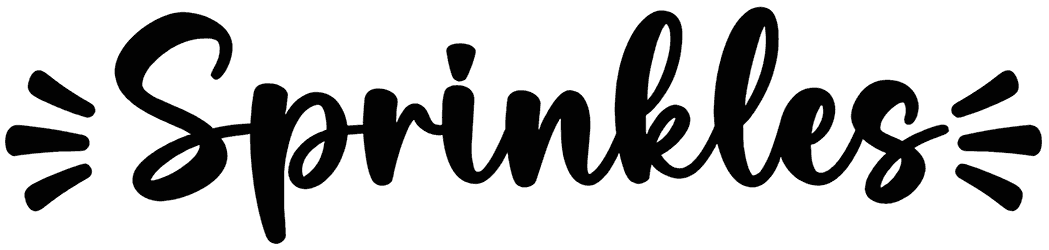
Sprinkles Font
Like the beautiful words of a Christmas postcard, this handwritten font has a delightful and sweet vibe. As a member of the thank you collection, this script font could be a nice adornment for varied happy-themed designs, like a birthday Instagram post. You have all the characters of the Sprinkles font, which means you’ve got excellent freedom to use it for any text.